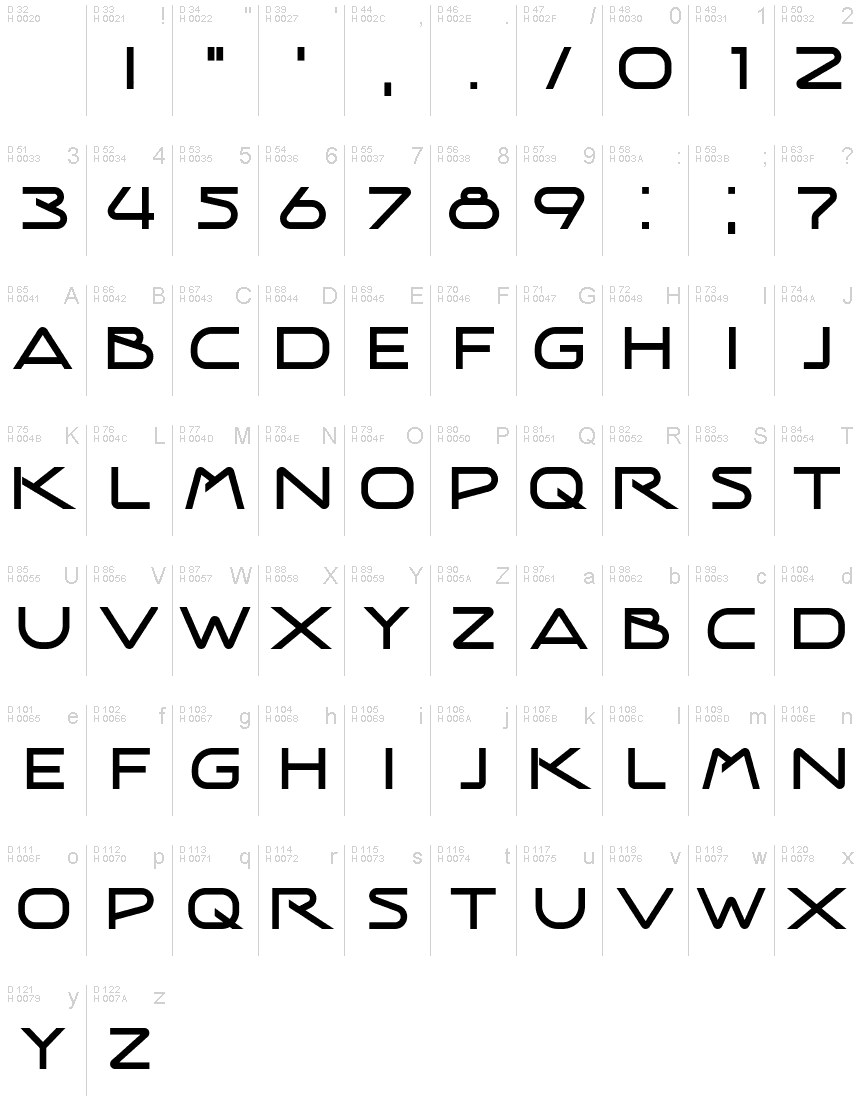
Balsam Bold
Balsam Bold emerges as a distinctive choice in the Balsam font family, designed by the talented Vladimir Nikolic. Its sans serif style exudes clarity and modernity, while its semi-light weight strikes an elegant balance between delicacy and assertiveness. The expanded width of Balsam Bold ensures that each character commands attention, making it not only legible but also impactful.
The aesthetic appeal of Balsam Bold lies in its clean lines and generous spacing. This gives it a contemporary vibe that is versatile enough for various creative endeavors. Whether you're working on branding, editorial design, or user interfaces, the understated sophistication of Balsam Bold can elevate your project with its stylish presence.
With its expanded form factor, Balsam Bold has an undeniable presence on the page or screen that demands attention without overwhelming the senses. It's this unique characteristic that makes Balsam Bold an exceptional choice for designers seeking to combine readability with a strong visual statement.
The aesthetic appeal of Balsam Bold lies in its clean lines and generous spacing. This gives it a contemporary vibe that is versatile enough for various creative endeavors. Whether you're working on branding, editorial design, or user interfaces, the understated sophistication of Balsam Bold can elevate your project with its stylish presence.
With its expanded form factor, Balsam Bold has an undeniable presence on the page or screen that demands attention without overwhelming the senses. It's this unique characteristic that makes Balsam Bold an exceptional choice for designers seeking to combine readability with a strong visual statement.